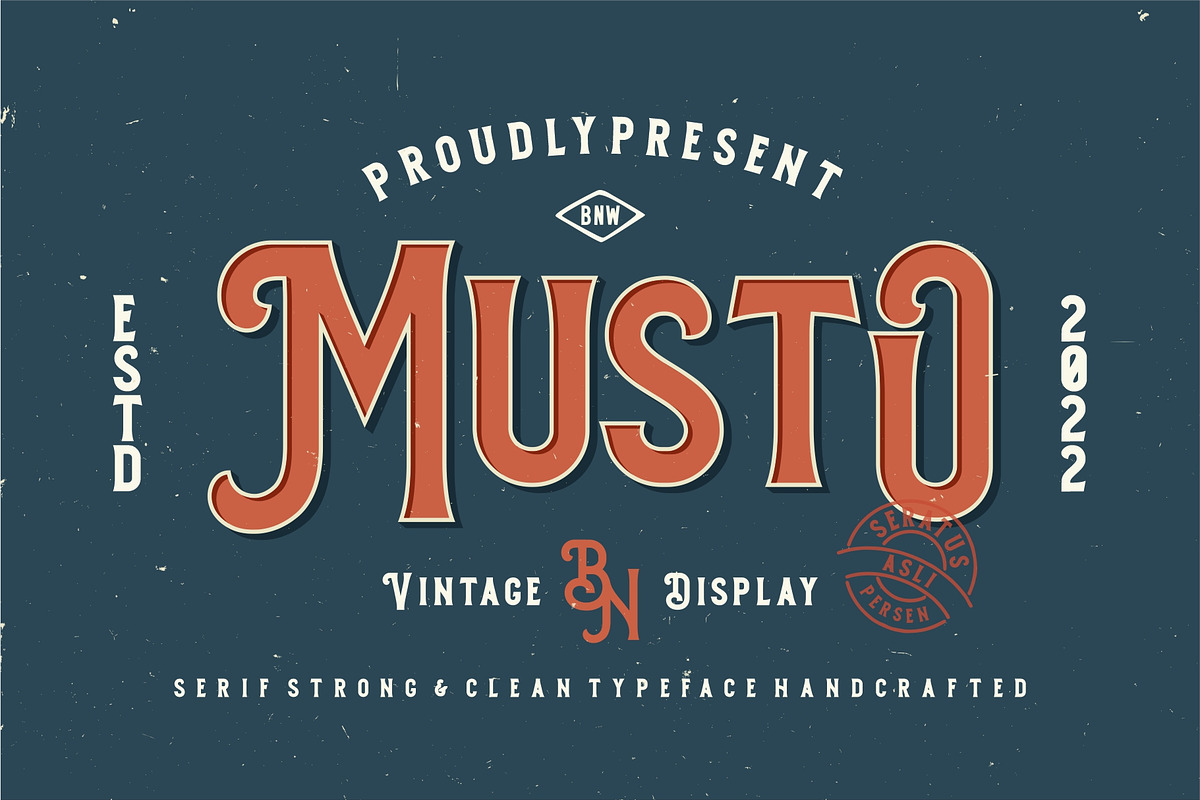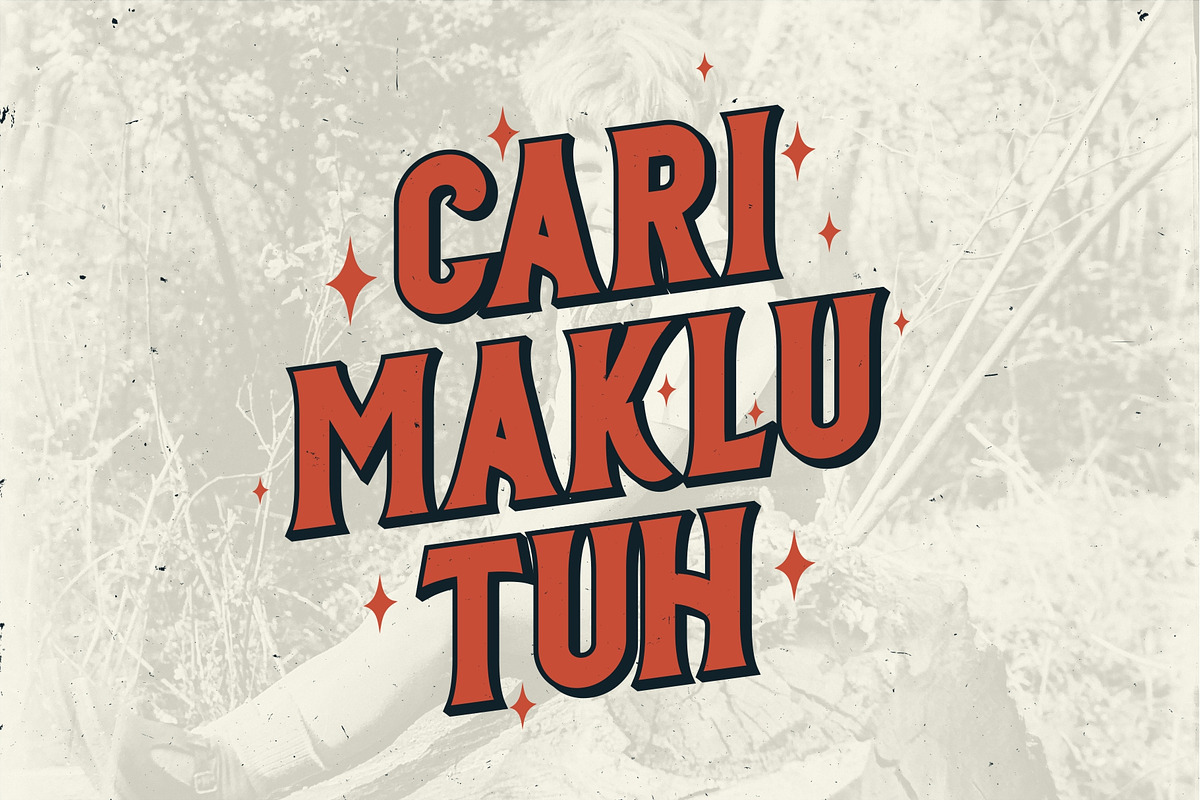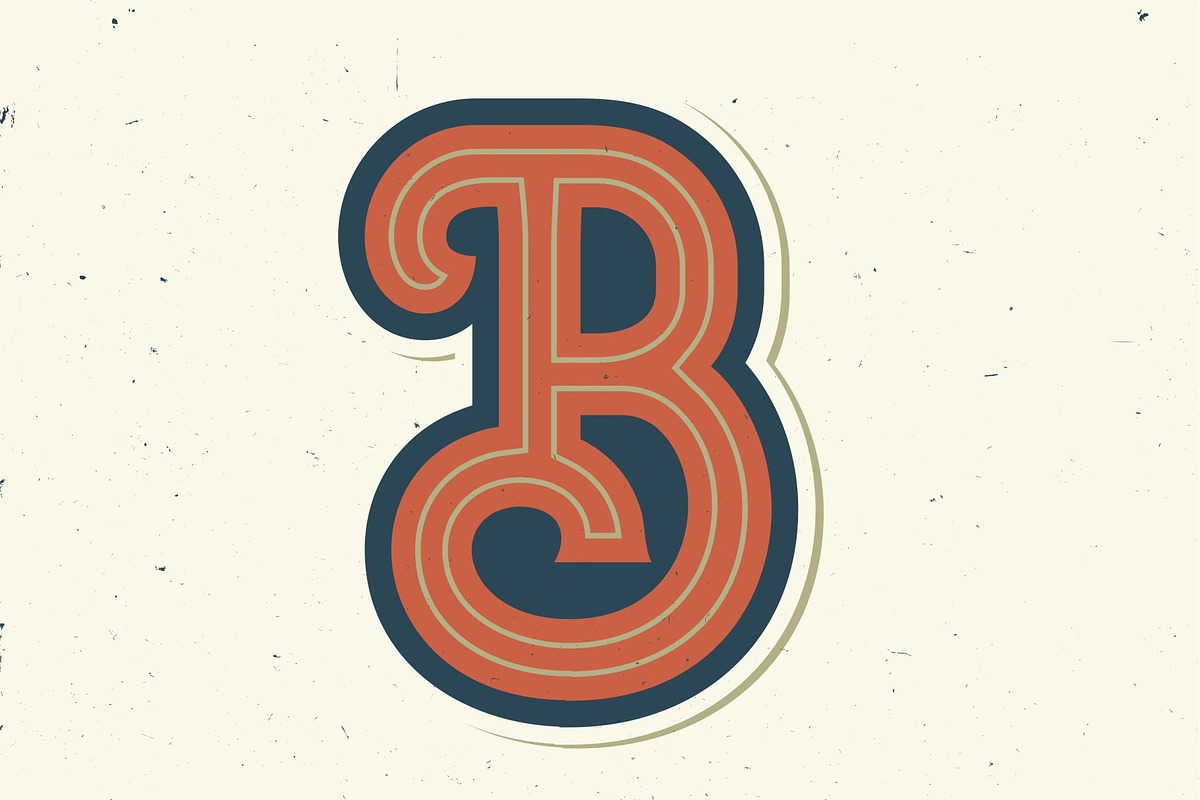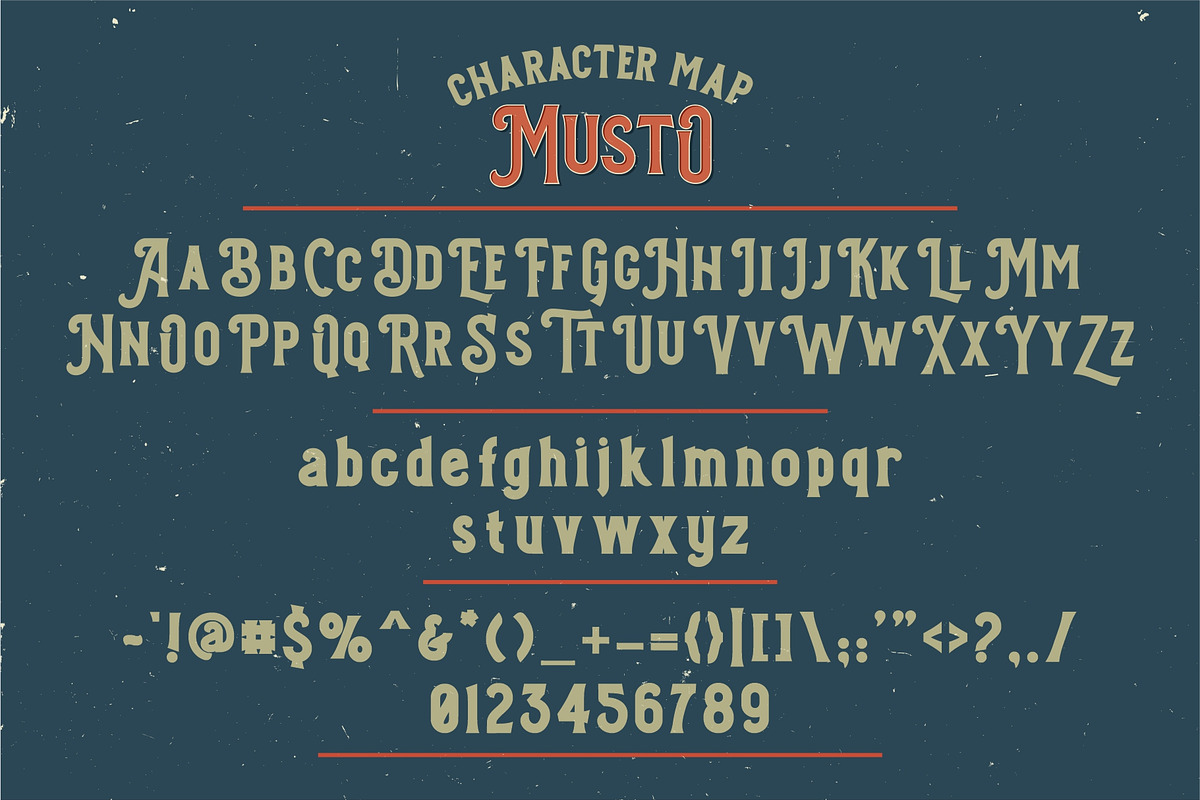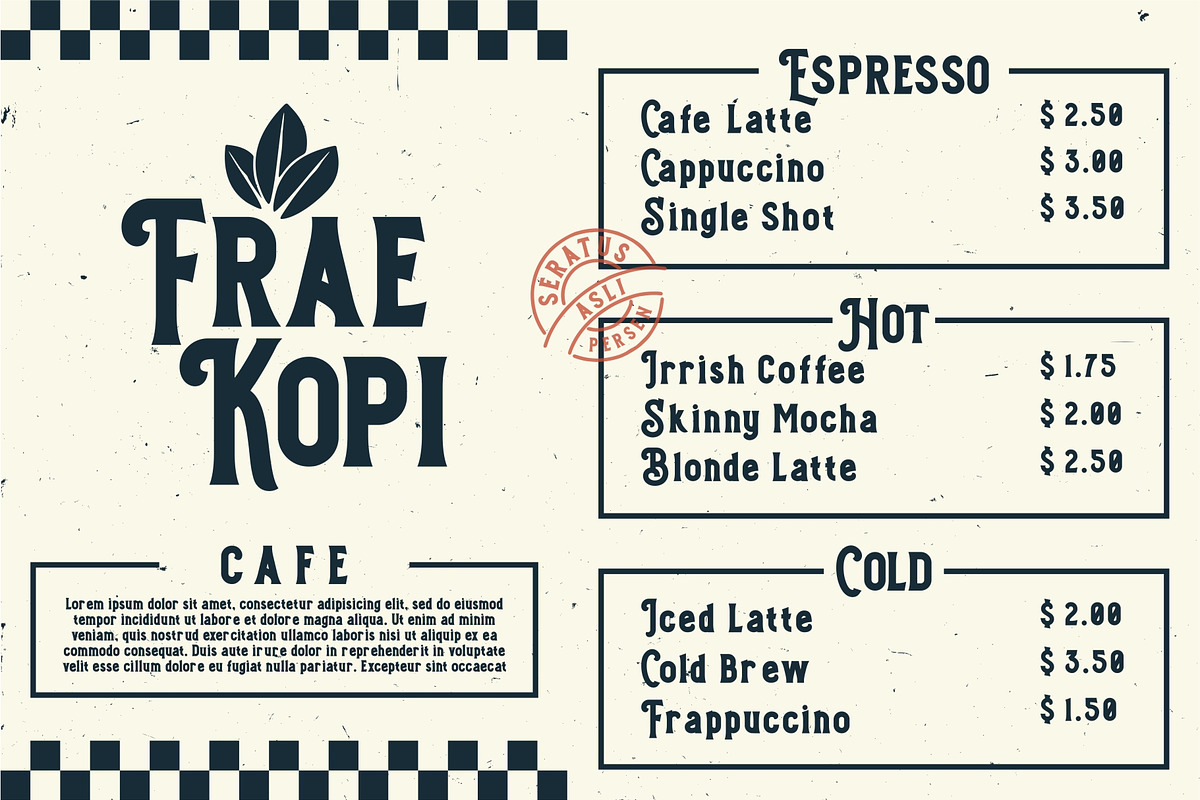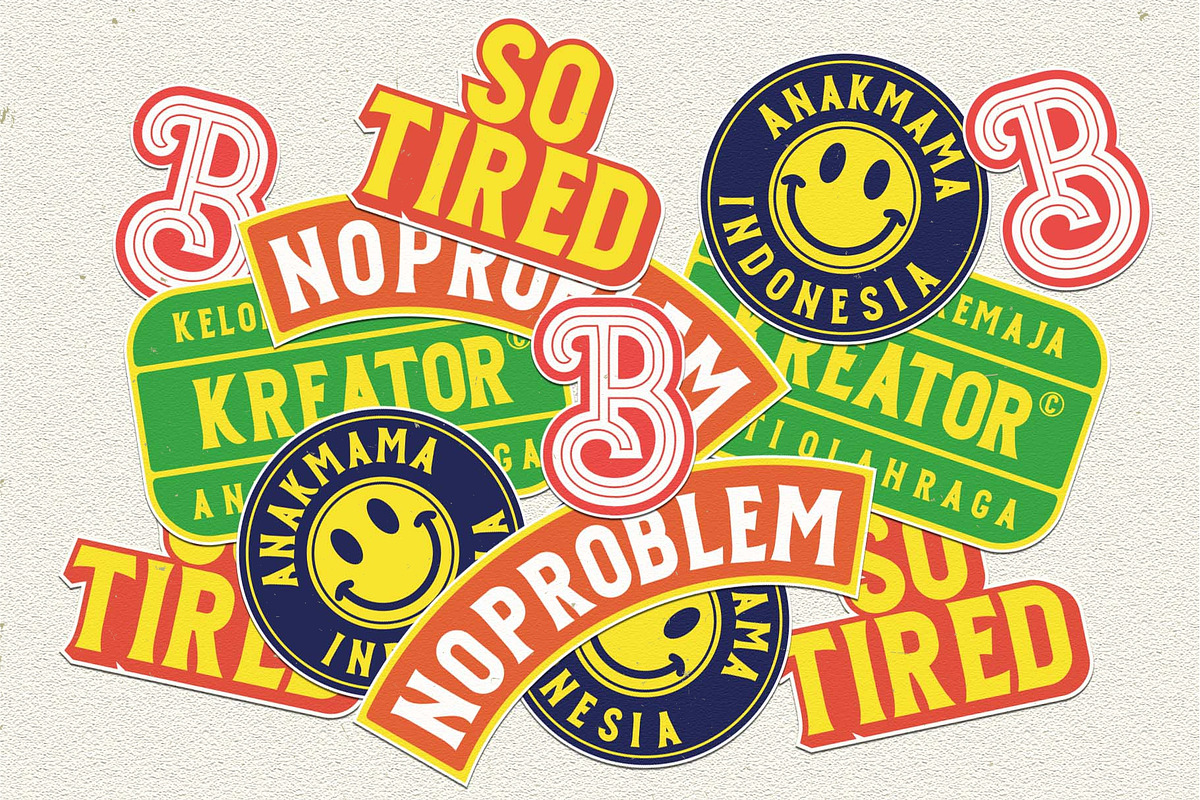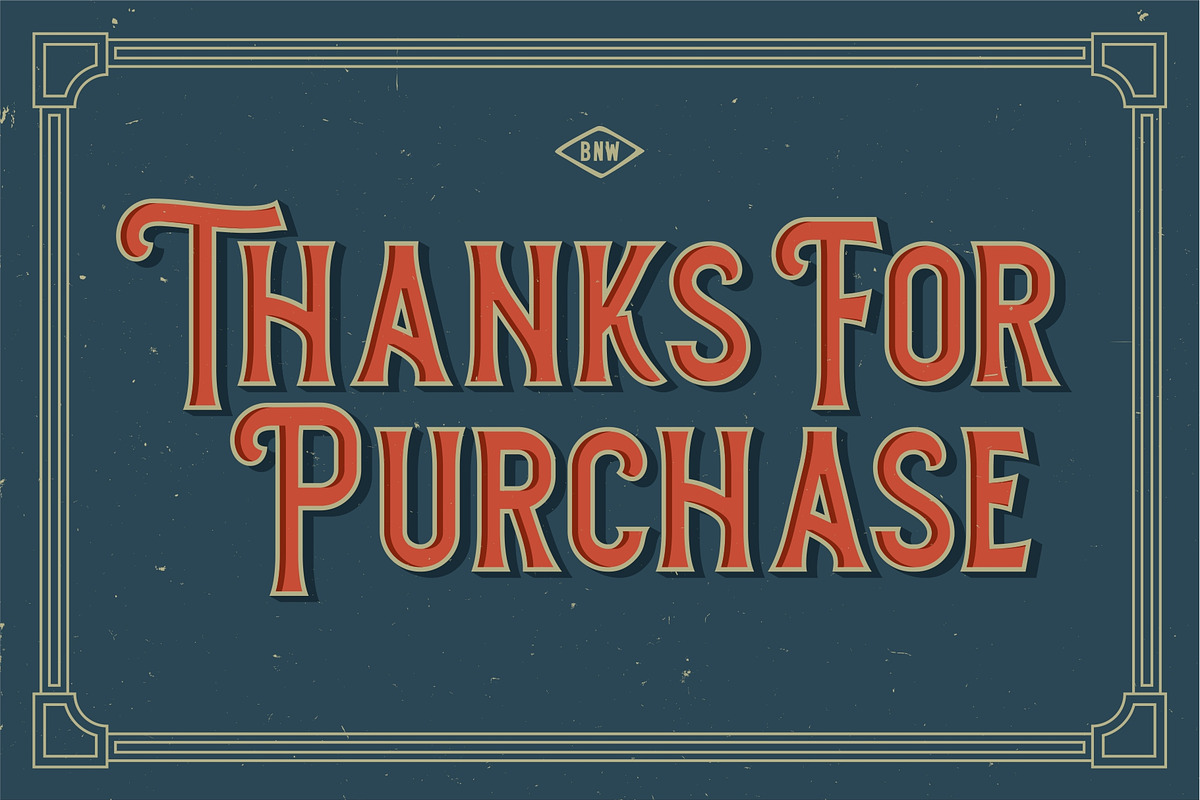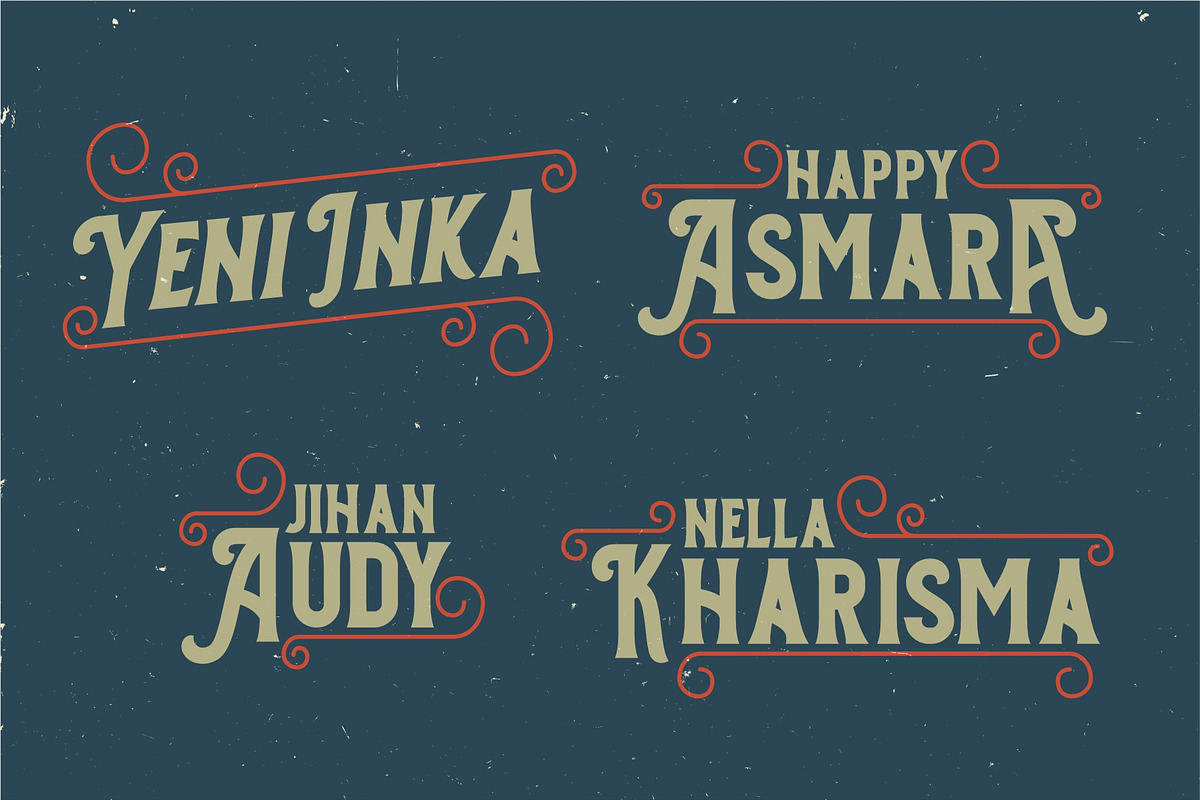
Musto - Vintage Display
Musto - Vintage Display Typeface. Comes with many alternate - great for your new logo or branding project.
Great for retro or vintage style branding projects Thanks.